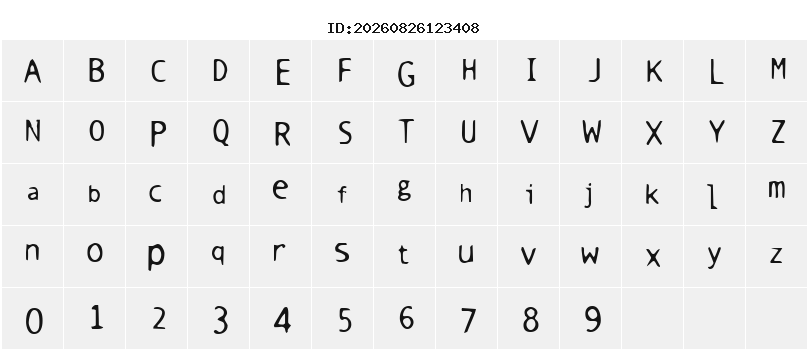
• Font Name: Warm milk
About Warm milk.ttf
Warm milk.ttf is a modern, elegant sans-serif font designed for ultimate readability and visual harmony. Perfect for branding, headlines, web design, and print materials.